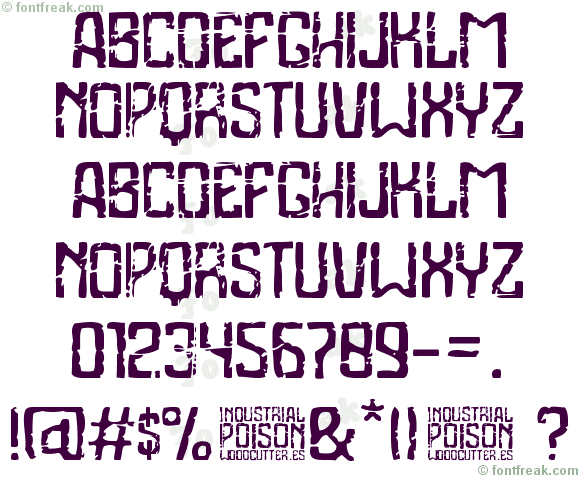
Industrial Poison
The Industrial Poison font, created by woodcutter Manero, is a striking display typeface that embodies an edgy, industrial aesthetic. With its distinctive character, this font features a combination of thick and thin strokes that create a dramatic contrast, enhancing its visual impact. The irregular spacing and jagged edges give it a raw, unrefined quality, evoking a sense of urban grit and resilience. Decorative elements, such as distressed textures and asymmetrical shapes, contribute to its unique personality, making it a perfect fit for projects that require a bold statement.
This font is ideal for a variety of creative uses. It shines in the design of movie posters, where its strong presence can capture attention and convey a sense of urgency. Additionally, its unconventional style makes it a great choice for branding in the fashion and music industries, where individuality is prized. The Industrial Poison font can also enhance restaurant menus, particularly for establishments that embrace a rustic or industrial theme, allowing them to stand out in a crowded market. Graphic designers and content creators looking to make a memorable impact will find this font an invaluable tool in their design arsenal.
Targeted towards graphic designers, small business owners, and anyone in the creative field, the Industrial Poison font free download offers an opportunity to explore a versatile typeface that can elevate various projects. Its distinctive style not only draws the eye but also communicates a strong brand message. The combination of its industrial flair and artistic edge makes this font a standout choice for those seeking to push boundaries in their designs. Whether you’re crafting a compelling visual narrative or looking to enhance your brand identity, the Industrial Poison font is sure to leave a lasting impression.